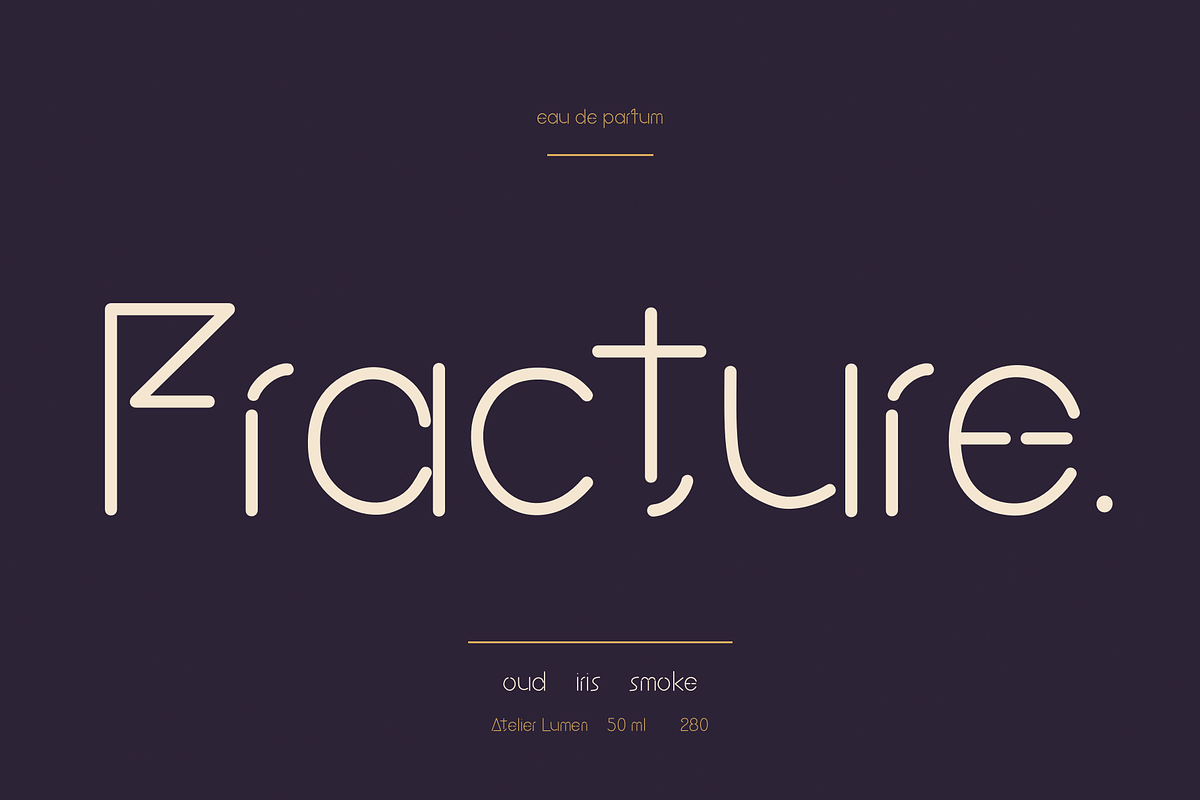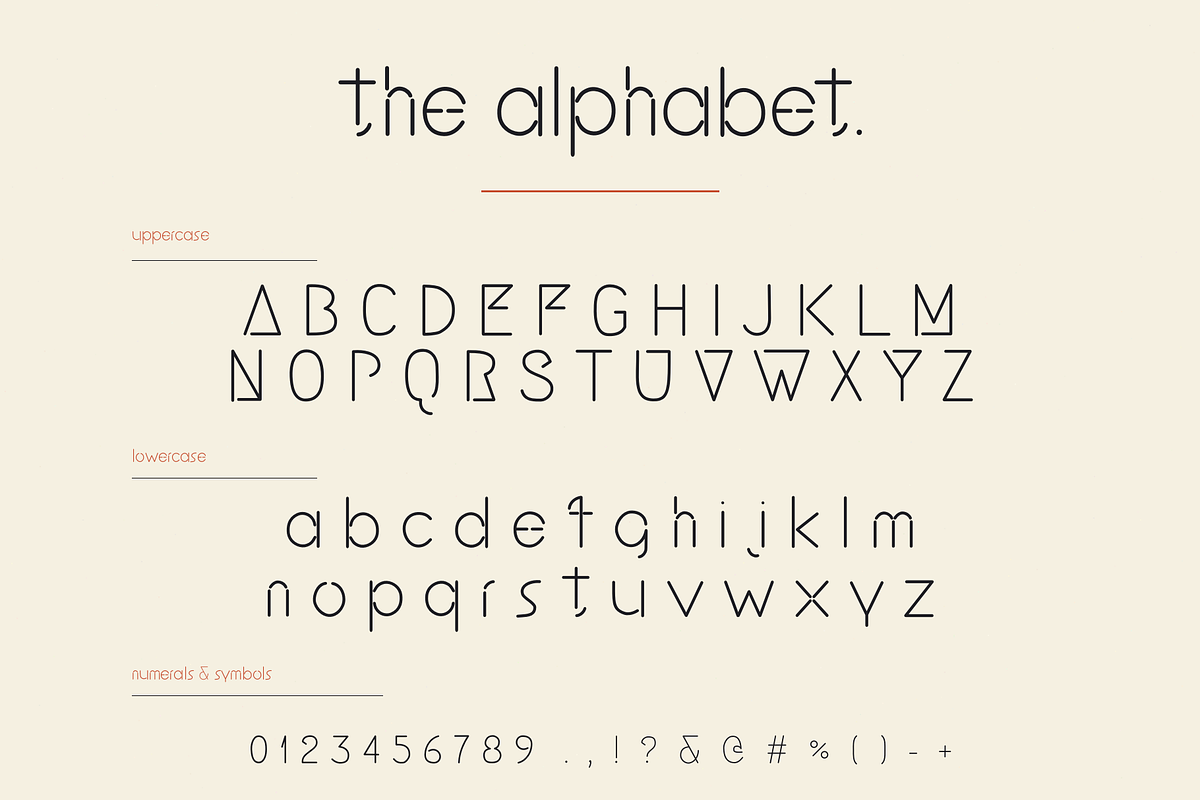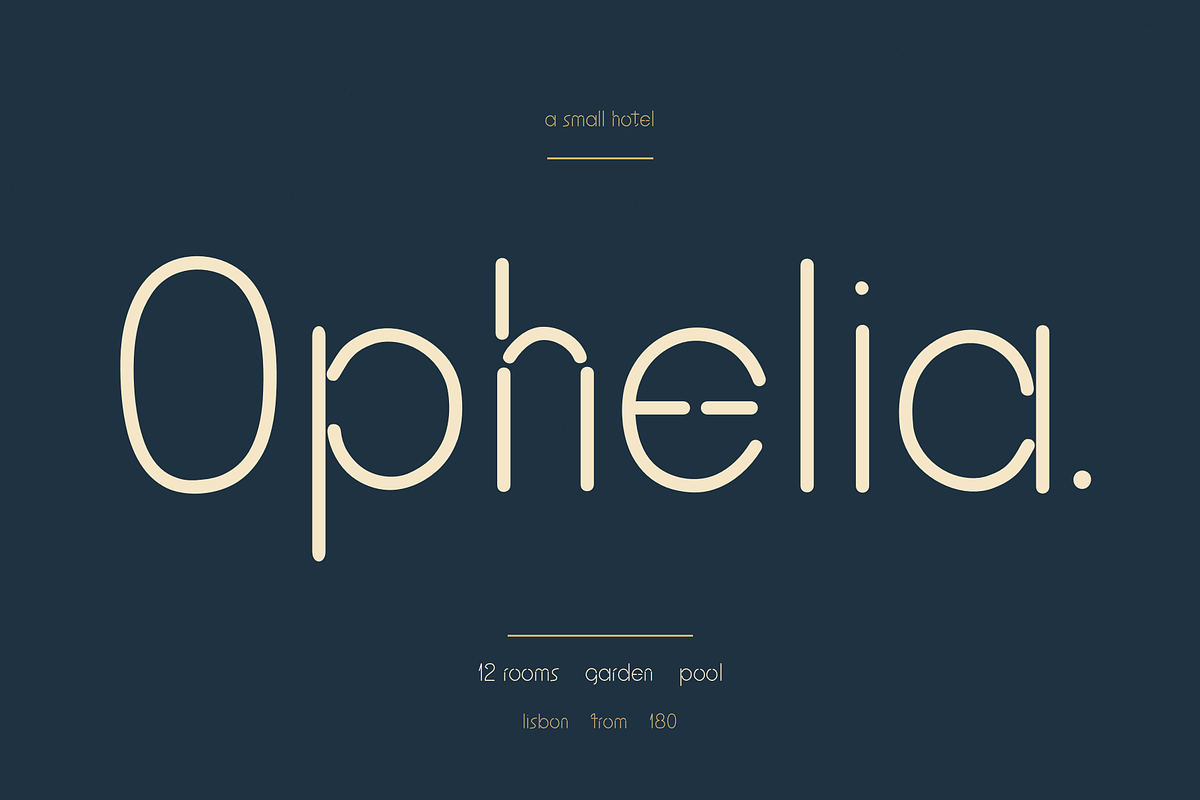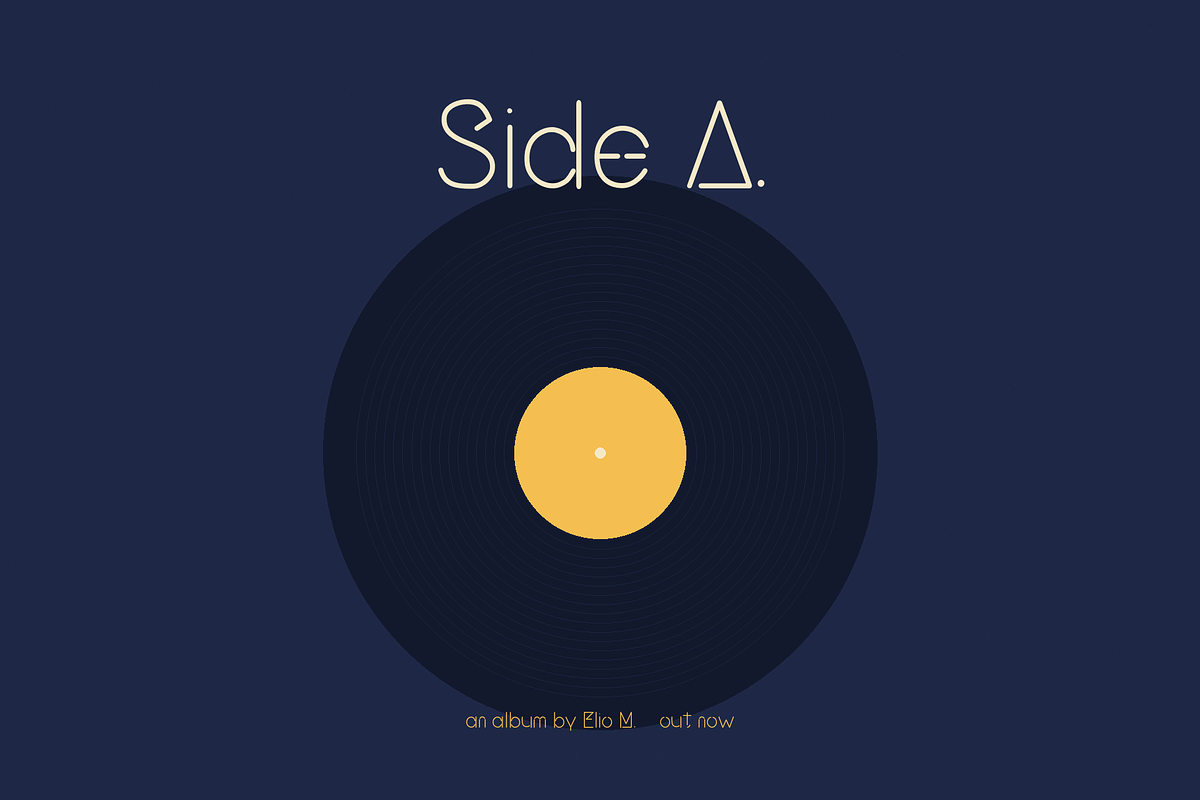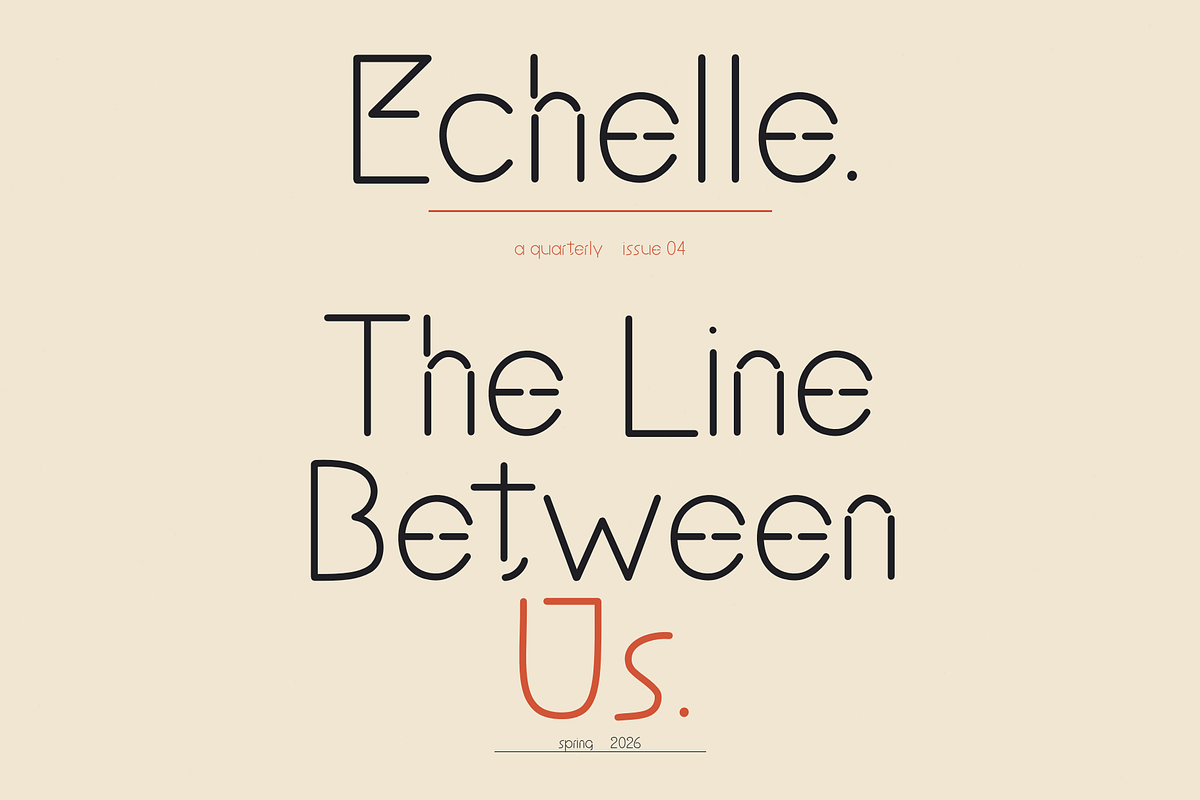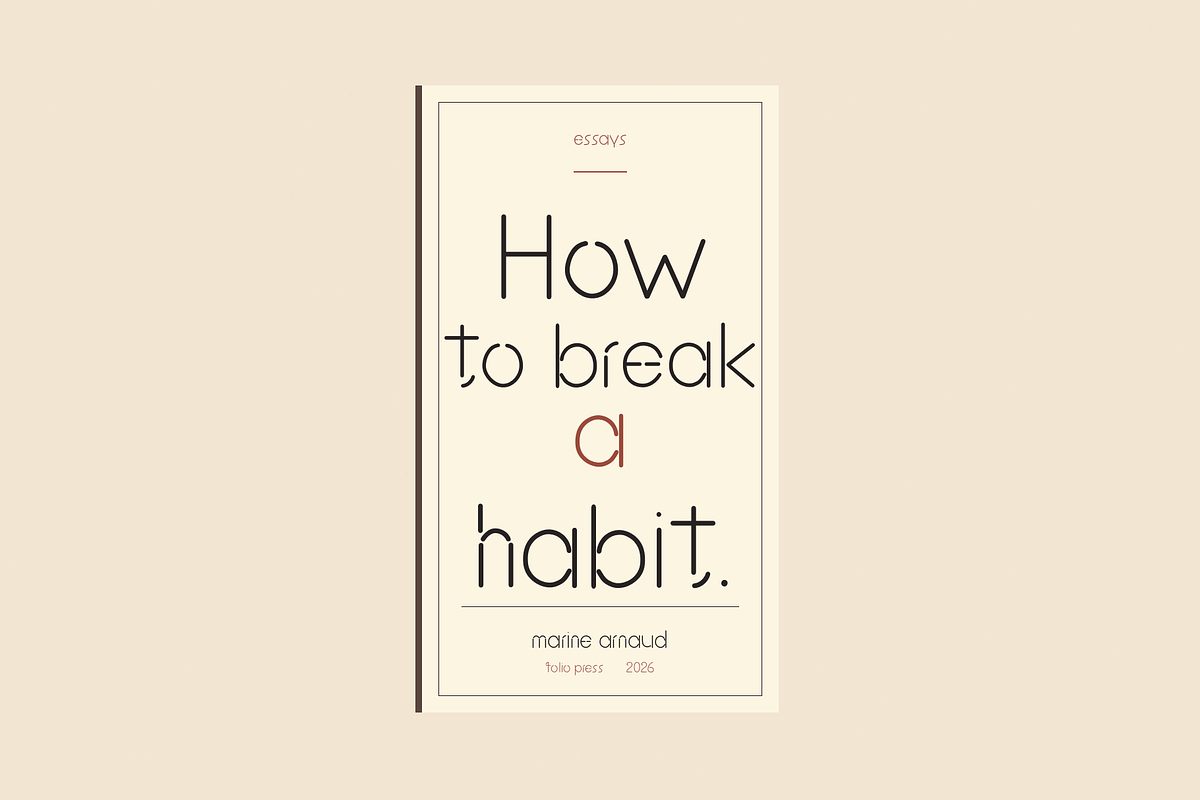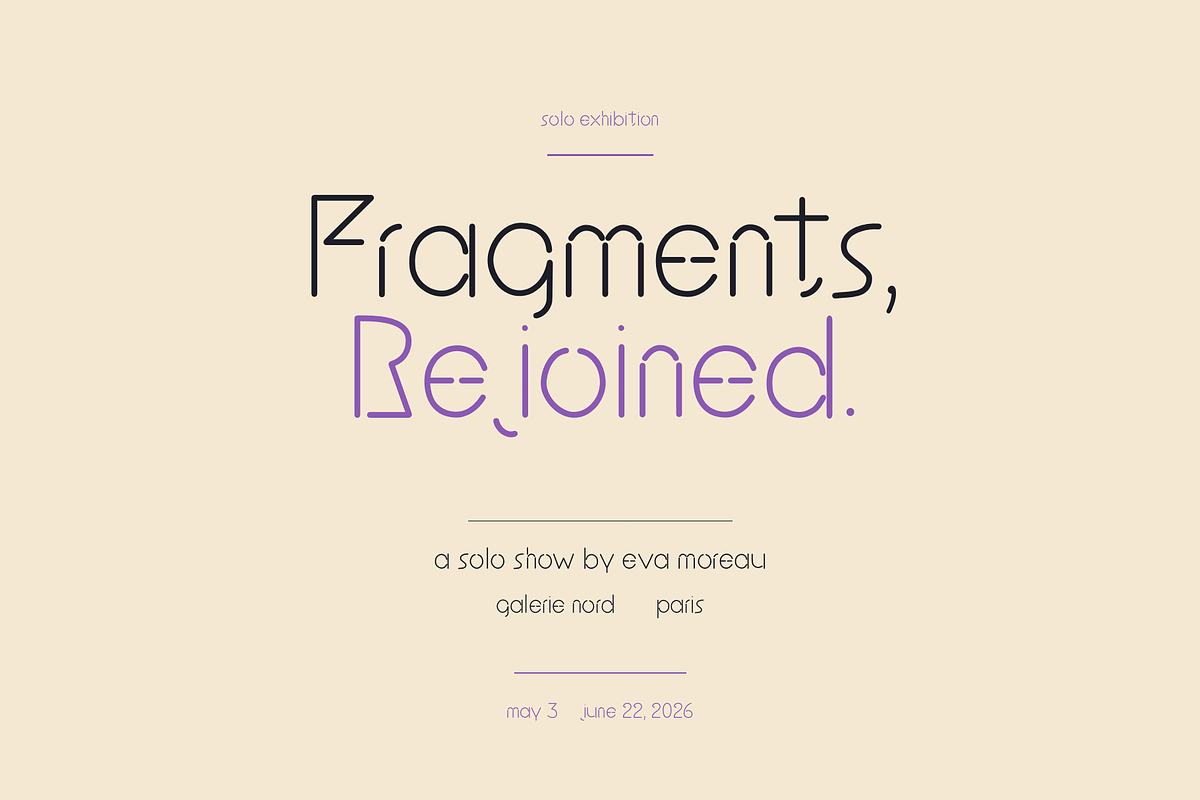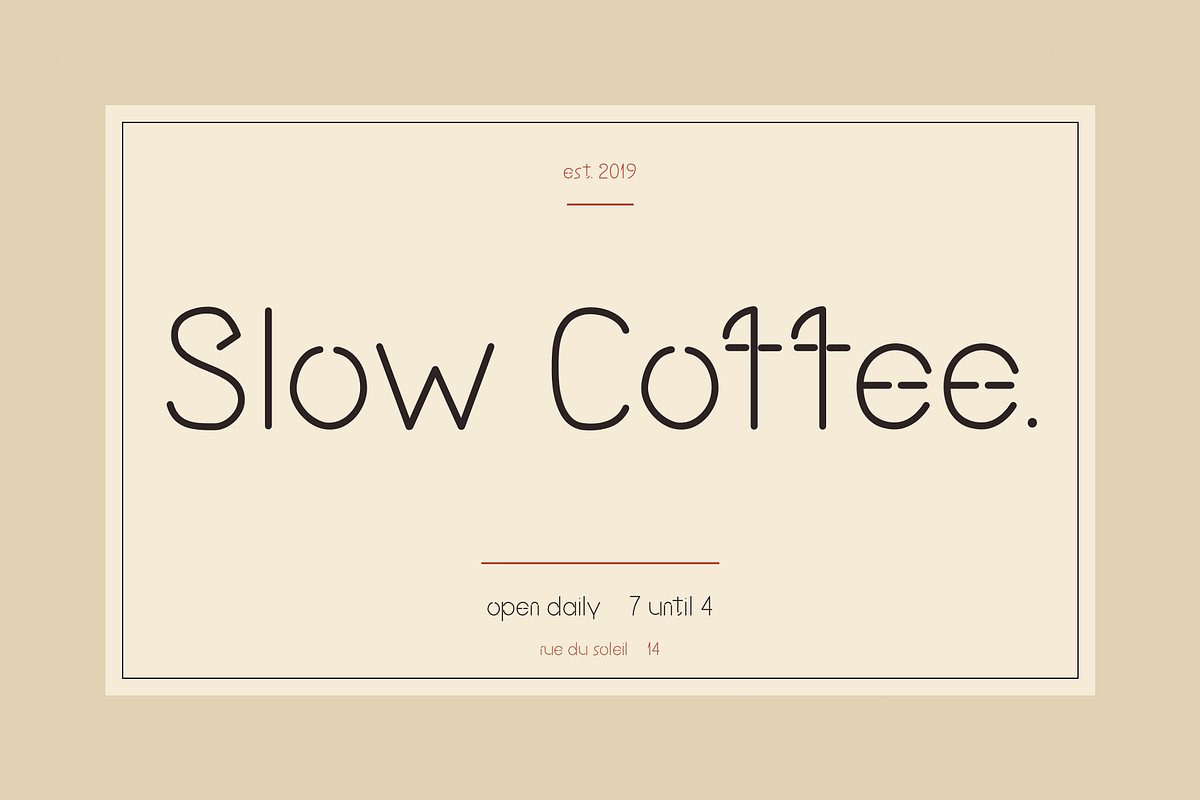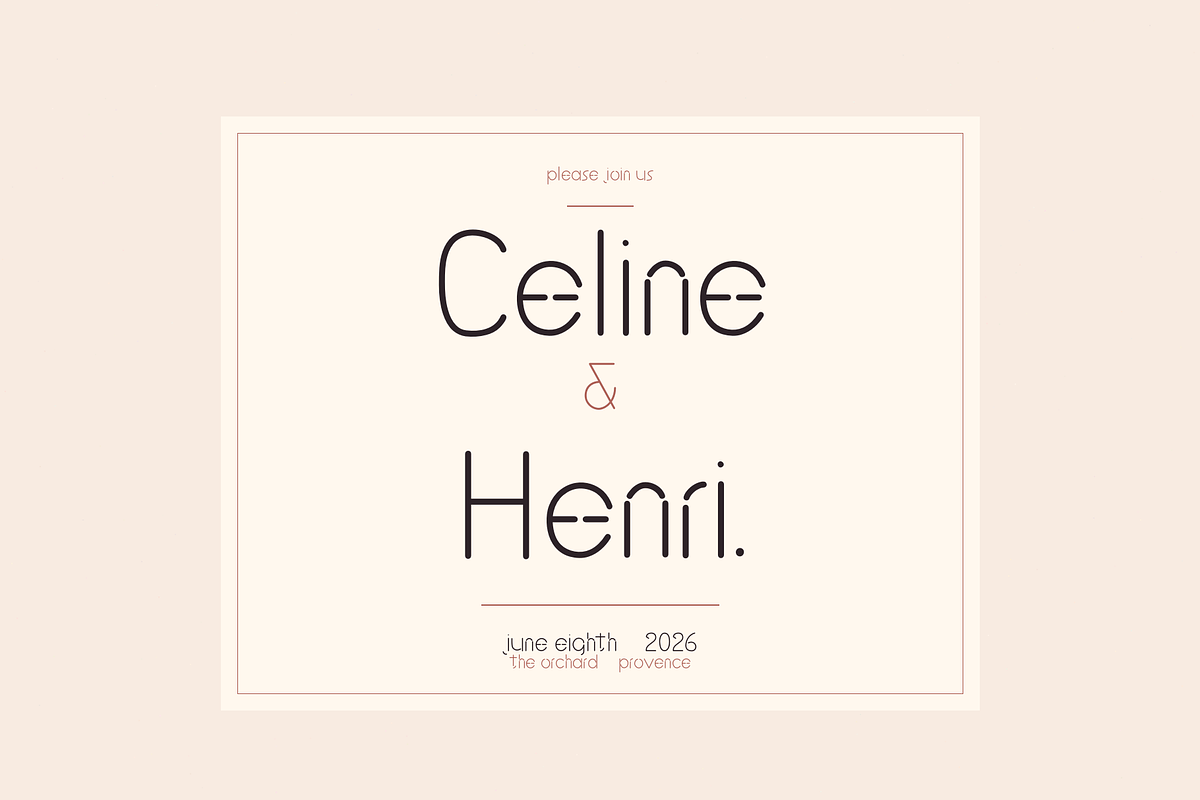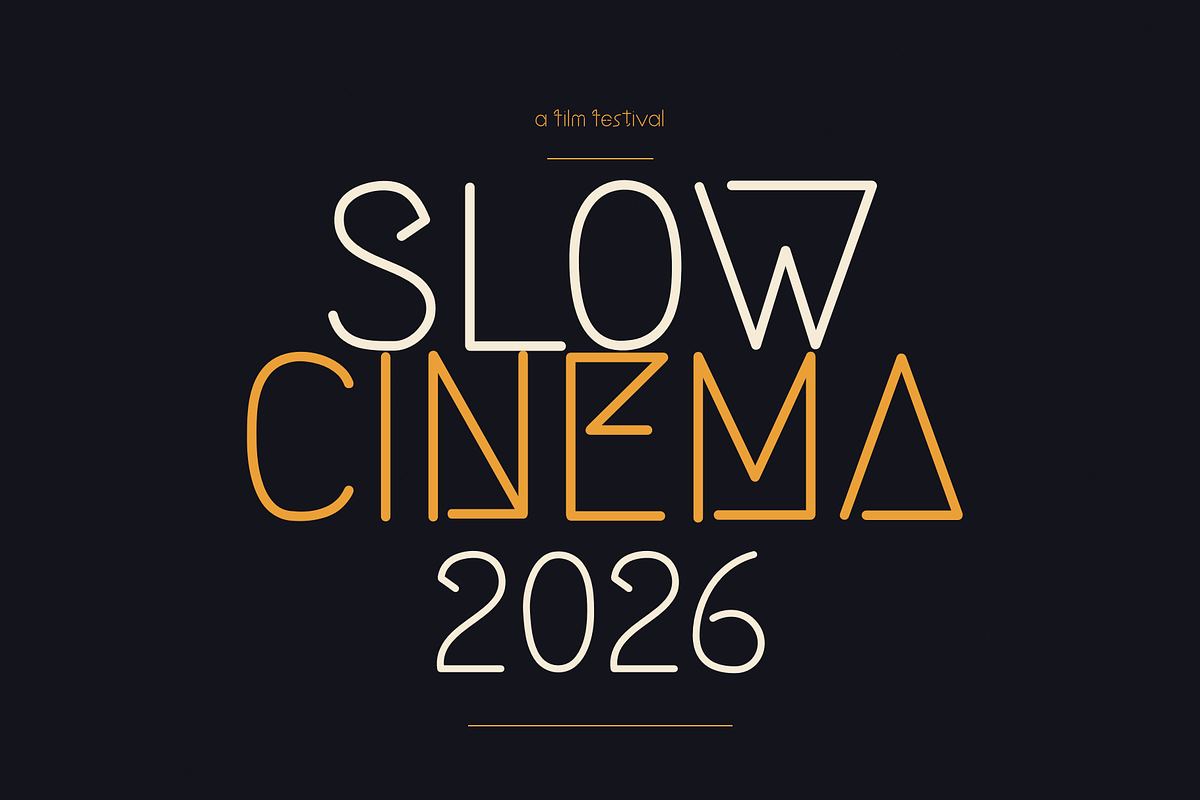
Kintsugi — Minimal Display Font
Kintsugi — a Minimal Display Font with a Line Through Every Letter
Kintsugi is a thin, geometric display typeface built around one simple idea: a single horizontal line runs through every letter. Inspired by the Japanese art of kintsugi — repairing broken pottery with veins of gold — this typeface treats the "broken" line as a design feature, not a flaw.
Clean, quiet, and conceptual — perfect for film festivals, book covers, album art, and editorial projects that reward a second look.
✦ WHY YOU'LL LOVE KINTSUGI
• Unique concept-driven design with a signature horizontal line through each glyph • Thin, geometric letterforms that feel minimal and editorial • Works beautifully at large display sizes on posters, covers, and titles • Distinctive enough to stand out, clean enough to pair with anything • Print-ready and web-ready
✦ PERFECT FOR
• Film festival posters & cultural branding • Book covers & essay collections • Album art, vinyl sleeves & music branding • Magazine editorials & article headlines • Gallery and museum identity • Minimalist branding & wordmarks • Art prints & poster design • Conceptual packaging • Social media graphics for creative brands
• Full uppercase (A–Z)
• Full lowercase (a–z)
• Numbers 0–9
• Punctuation & symbols